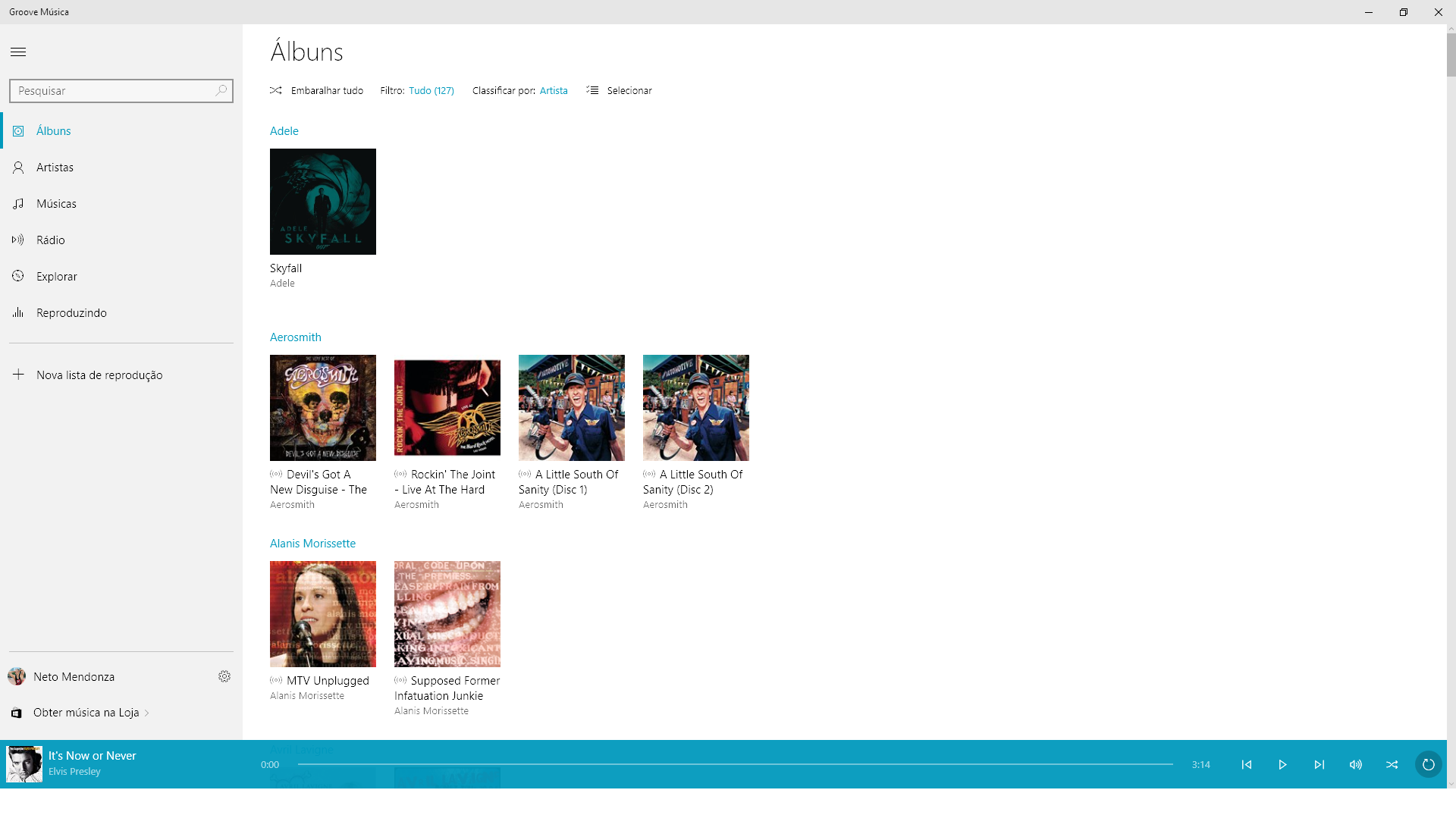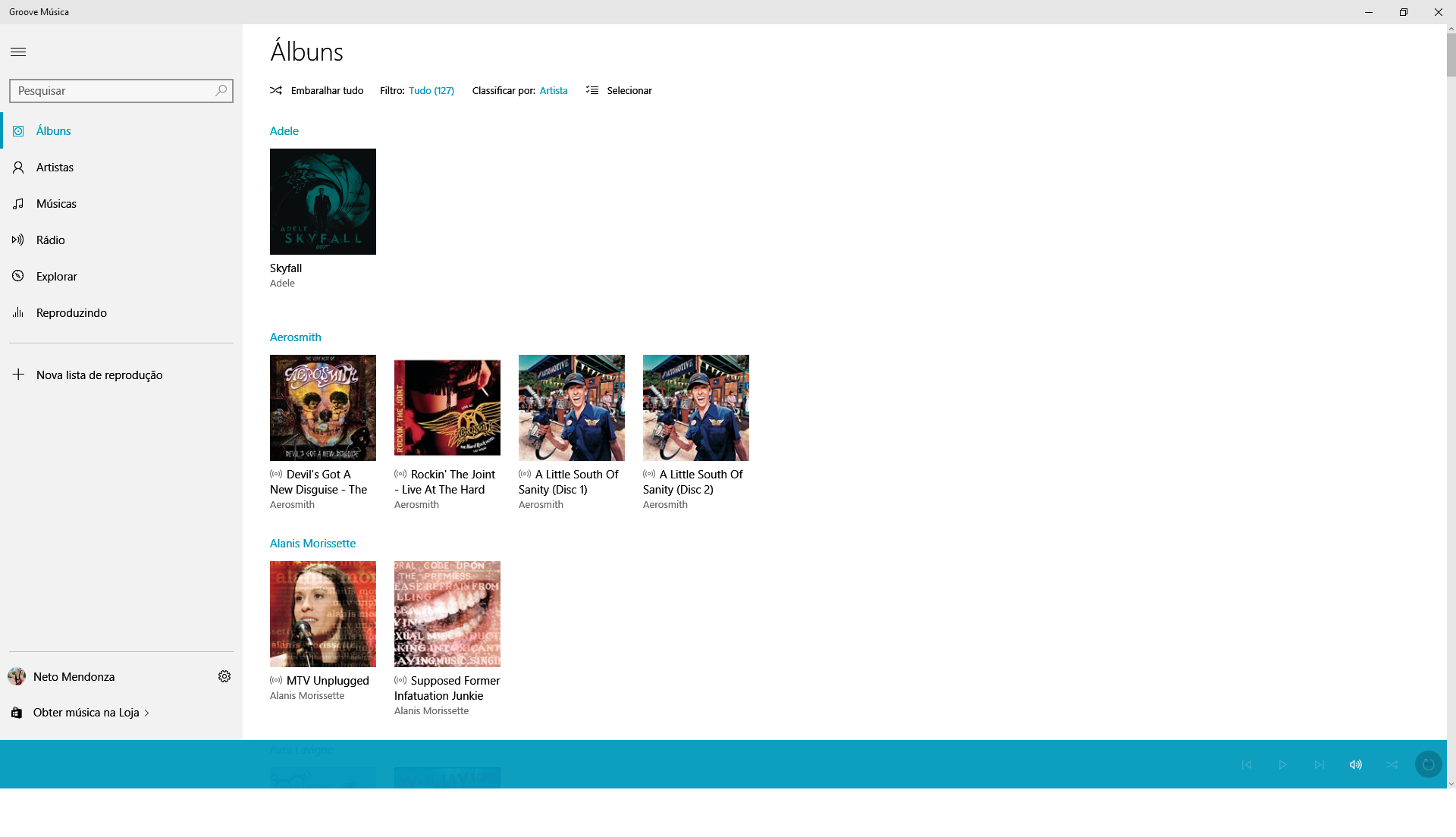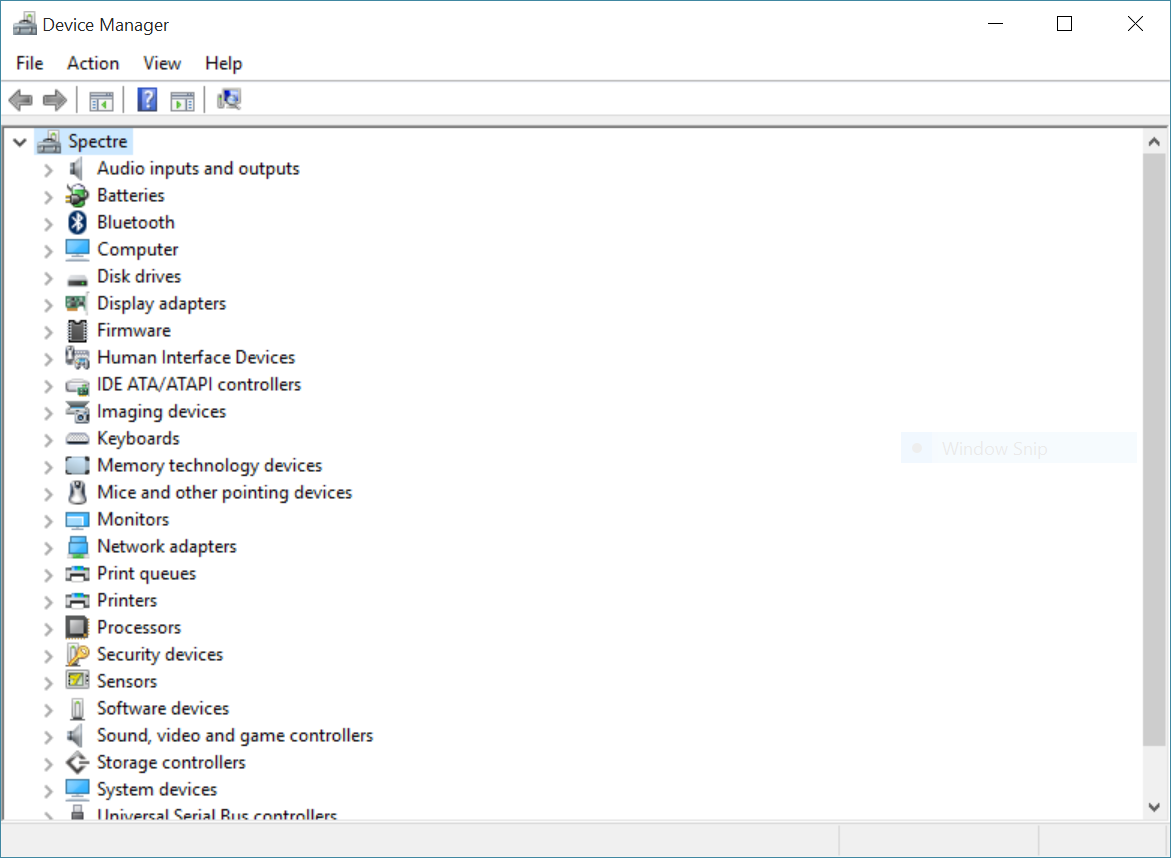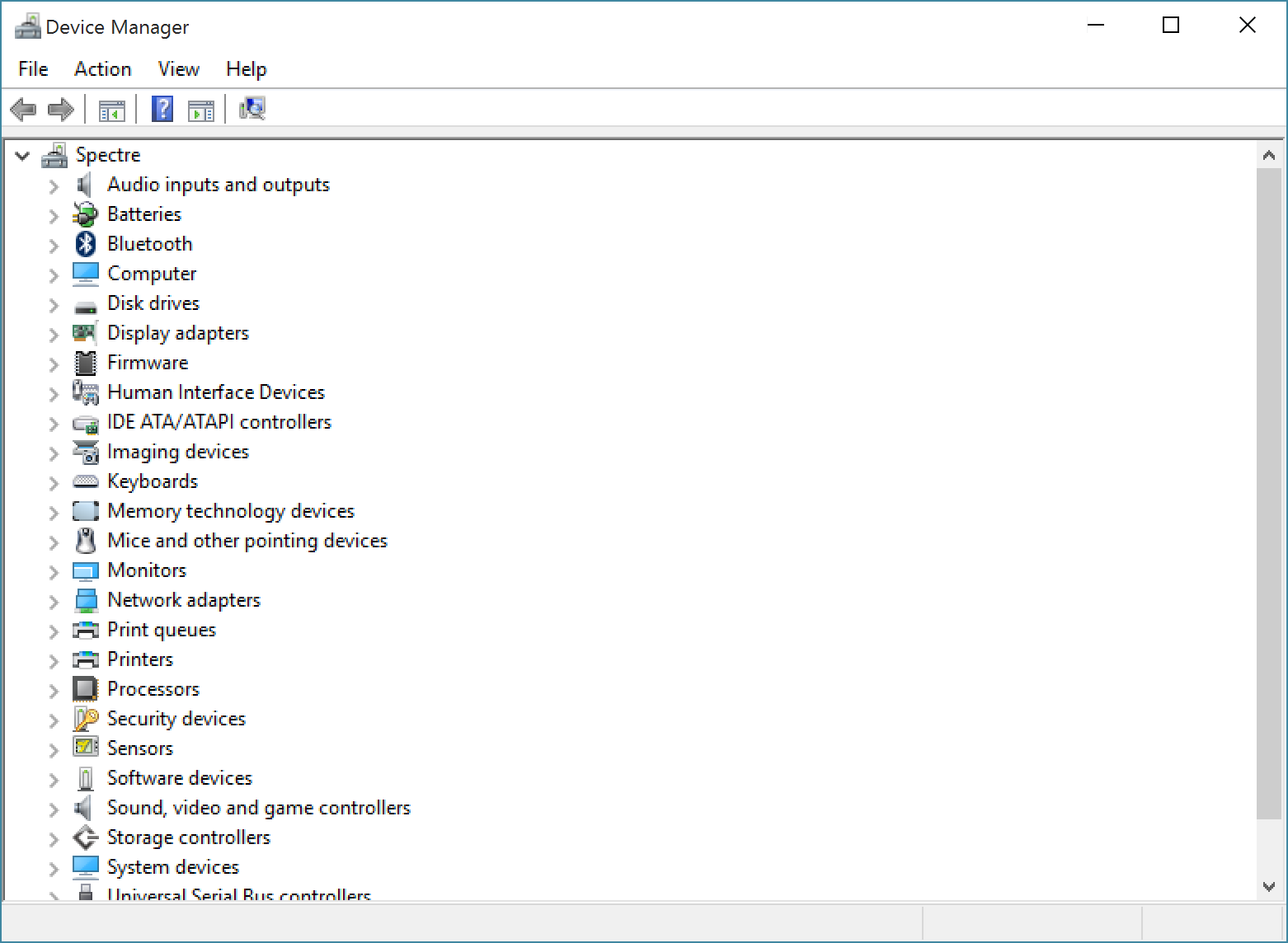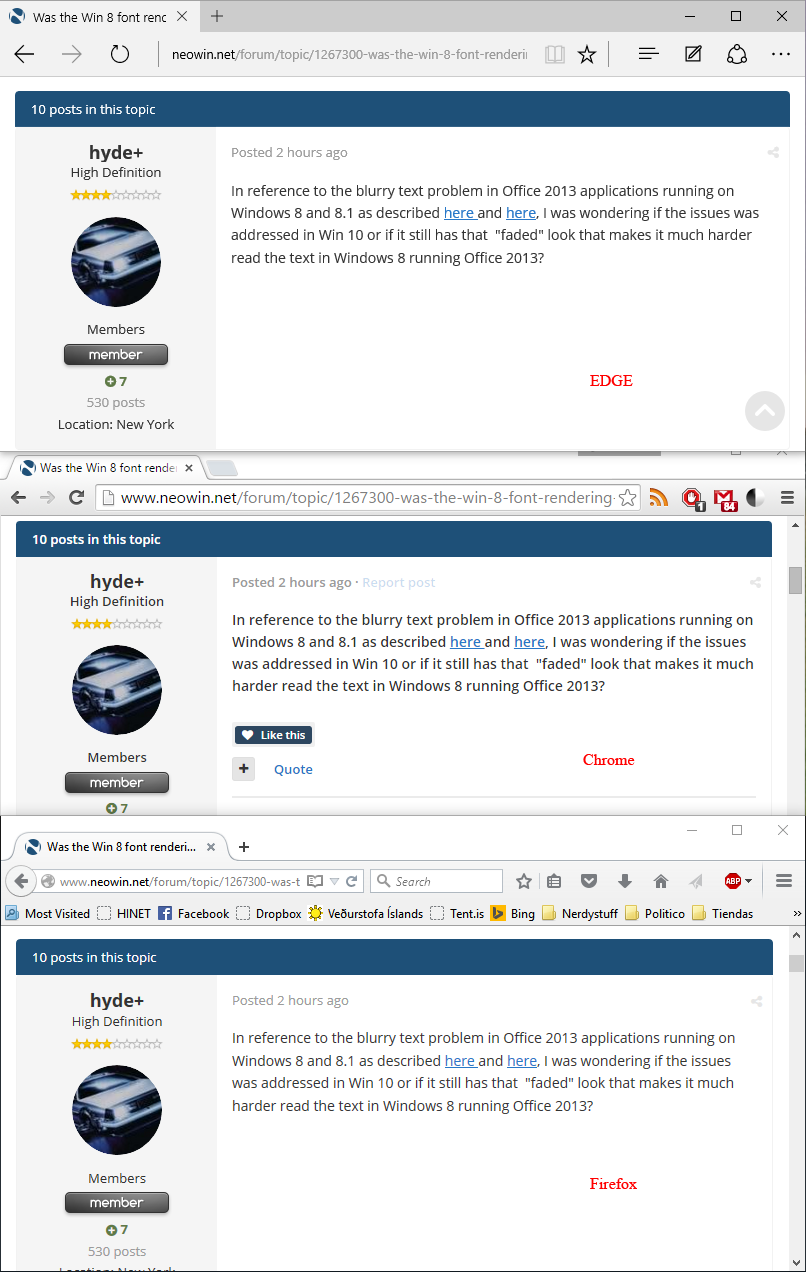
Was the Win 8 font rendering issue fixed on Windows 10?
In reference to the blurry text problem in Office 2013 applications running on Windows 8 and 8.1 as described here and here, I was wondering if the issues was addressed in Win 10 or if it still has that  "faded" look that makes it much harder read the text in Windows 8 running Office 2013?
I don't have any problem on mine... remember, we all don't have same system and graphic cards...   depends what graphic card you have...  you can try and see.. If not happy, then you can do either update the graphic card if available or roll back to Windows 8.1..
Thanks, it was mainly an issue on high resolution laptop screens and not specifically due to graphics card issue.
If you read the link I included above,
No amount of adjustment with Clear Type tuner helps much.
I have tried all the fixes recommended like ticking "use Software rendering instead of GPU rendering" in IE10 and in Options in Office 2013.
It makes absolutely no difference.
I installed Windows 8 on completely different hardware to check if it was a graphics card issue. The poor font rendering was still there.
I am currently dual booting Windows 7 and 8 on the same PC. Fonts in Windows 7 remain perfectly clear. In windows 8 they are so bad, the OS is basically unusable.
And also here:
he cause for Office, Modern UI and IE10 to look so bad is that they use a new graphics rendering API offered in Windows 8 (and with updates on Windows 7, too).
The new font rendering engine offered by this new API simply doesn't have Clear Type implemented. So unless Microsoft patches this new API to support Clear Type, no program using this API will ever be able to do so.
The reason why Firefox (and Chrome, to an extend) are able to use Clear Type is because they still rely on the old Windows font-rendering API.
This is a bad decision by Microsoft, but their reasoning behind that (from what i think) is also quite clear: It is based on the assumption that their future will be in the tablet market. Since ClearType only works in one direction (horizontally, that is), it is totally useless if you rotate the tablet. The other thing is animation: if you animate a Clear Type anti-aliased font, its boundaries will start to flicker. And since Modern UI is a lot about animations and transitions, this would offer a bad experience.
Last thing is the much higher ppi (pixels per inch) offered by tablet screens (>200ppi) in respect to computer monitors (mostly <=120ppi), where grayscale-anti aliasing is totally sufficient for crisp fonts.
And the worst thing: the Surface has a display with only 148ppi! So fonts look crappy on their reference design tablet.
The bad thing is: no one can help you with the font rendering problem. You're on your own, as a consumer. For me that meant to downgrade back to Office 2010, ignoring Modern UI and all apps completely and ditching IE 10 (but hey, that's a no-brainer, isn't it?).
I've noticed no difference in the font rendering in Windows 10. I'm not sure if Chrome has been updated or if W10 has updated the way it handles font, but I think font in Chrome looks better in W10 than it did in 8.1. I can't say I've noticed any difference in Office either.
I see a few issues on my Spectre.  Ironically, it ends up being Device Manager that I see it the most.
If I change my scaling back to the default 200%, it helps, but then everything is huge.
This is not lowered quality for the forum, it actually looks this blurry.
Chrome uses DirectWrite sub-pixel RGB (modern Cleartype) rendering regardless of whatever version of Windows you're on, which is why you don't notice anything different. Office 2013 and up use grayscale font rendering, as do Modern/Universal apps (including Edge) and much of Windows 10's new GUI elements, which produce the chunky/rough look with smaller text sizes.